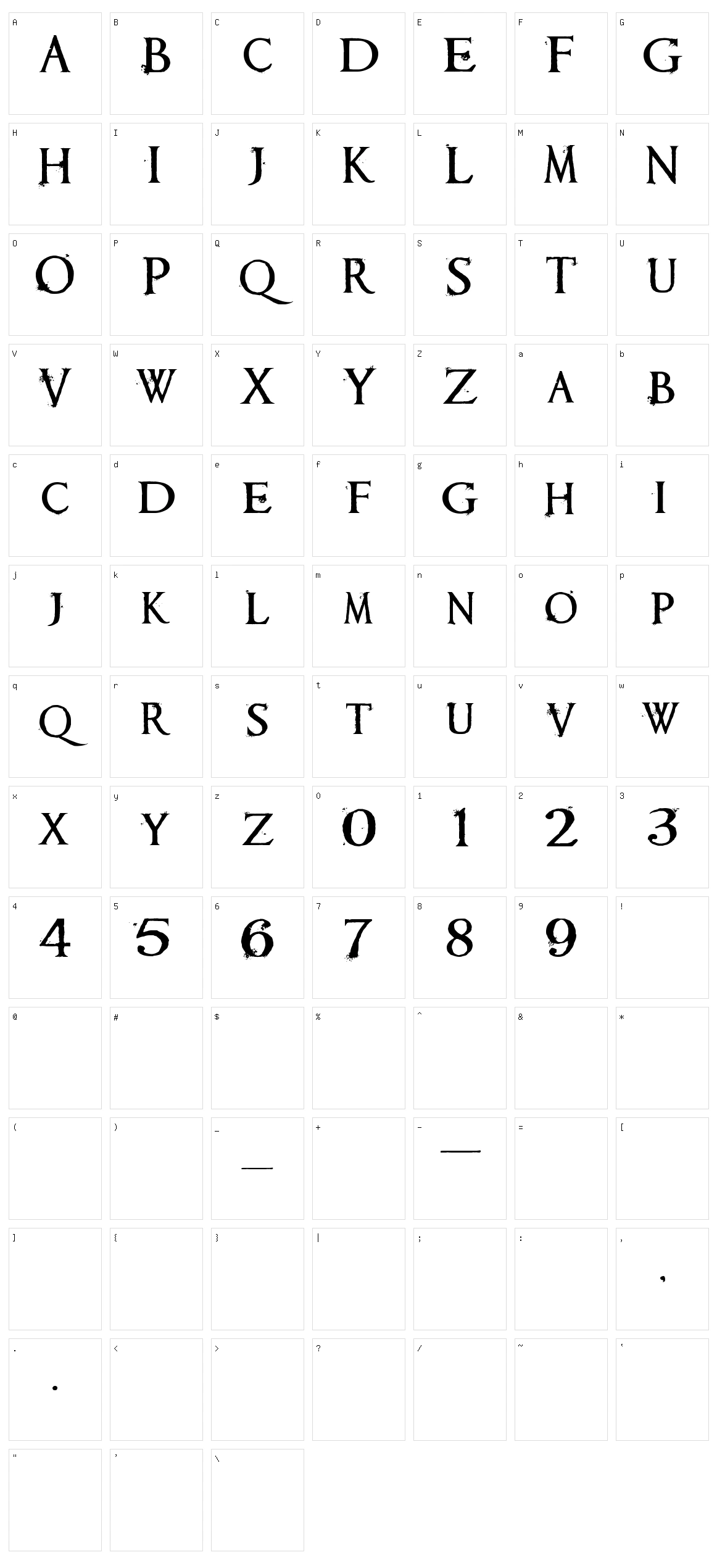
The free font Requiem is carefully designed by Christopher Hansen, showcasing a thoughtful balance of creativity and usability and falls under the Eroded font style. When you download the ZIP file, it contains only 31.55 KB of font files, making it lightweight and quick to download. Please review the license details below to understand permitted usage and distribution rights. If license information is not available, we recommend using this font for personal projects only or contacting the author directly for commercial usage permissions.
REQUIEM FONT BY CHRIS HANSEN